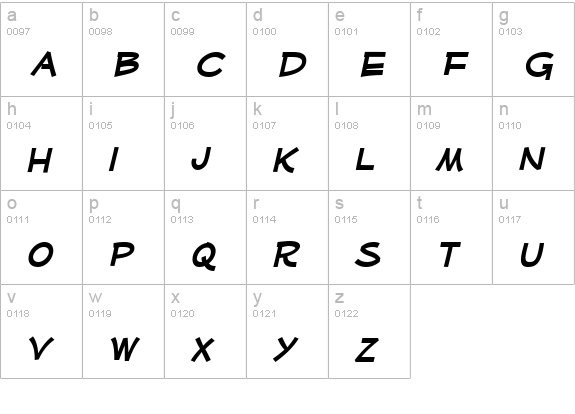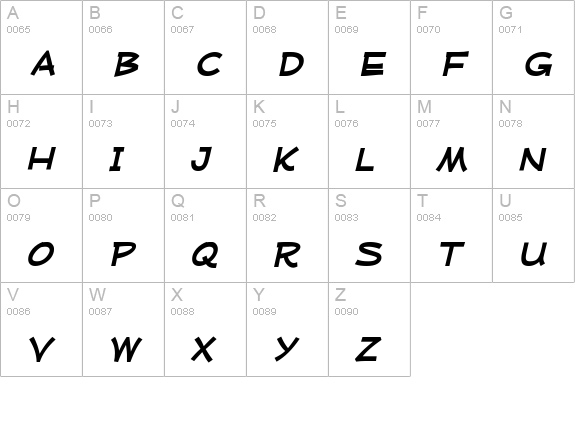
Mufferaw Xp Bold Italic is a strong, high-contrast, italic variant in the Mufferaw typeface family \xE2\x80\x94 well suited to headlines, attention-grabbing titles, and strong calls-to-action.
Mufferaw Xp Bold Italic is a powerful and dynamic font that exudes confidence and modernity. With its bold strokes and sleek italics, this typeface is perfect for making a bold statement in any design project. Whether used for headlines, logos, or branding materials, Mufferaw Xp Bold Italic commands attention and leaves a lasting impression. And the best part? Mufferaw Xp Bold Italic is available for free download at FontsMarket.com. This means you can add this striking font to your collection without any cost, making it a valuable asset for both professional designers and hobbyists alike. Don't miss out on the opportunity to enhance your designs with the bold and stylish Mufferaw Xp Bold Italic font – download it for free today!